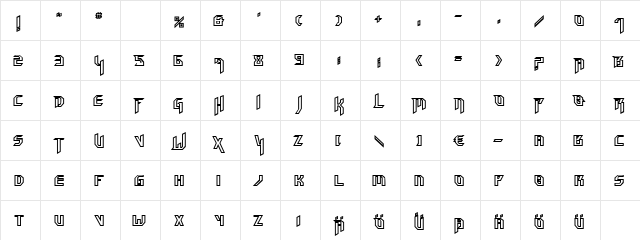
HammerheadOutline Regular
Design Context for HammerheadOutline Typeface
HammerheadOutline brings ornamental detail and strong personality to headlines and identities, where visual impact matters more than quiet functionality.
Font Pairing: Pair with a clean neutral sans-serif for body copy to let HammerheadOutline's character lead without overwhelming the composition.
Pro Tip: Treat HammerheadOutline as the centrepiece of your typographic hierarchy. One strong heading set in a decorative face can carry an entire layout.